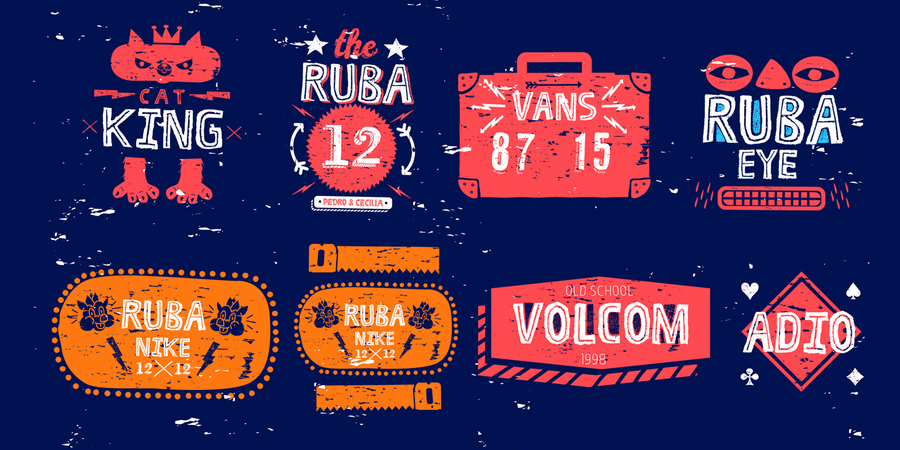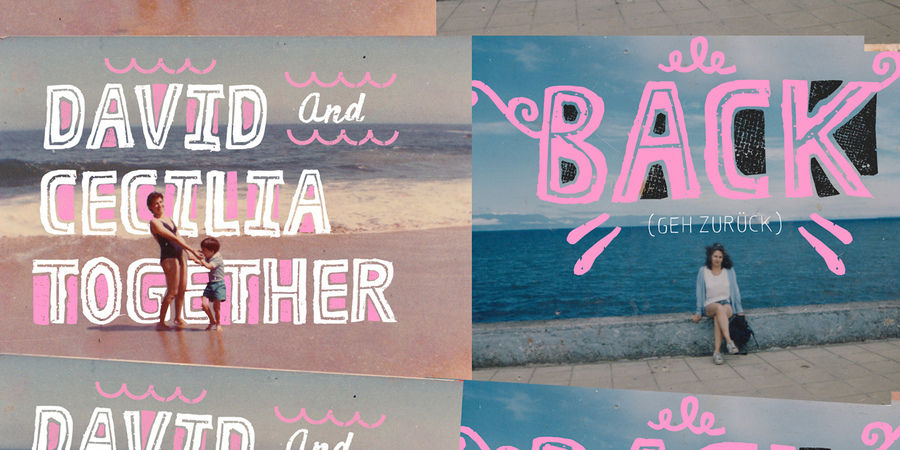
Ruba Style is a variant of Ruba. Ruba style plays with Retro, Vintage, Memories, Skate, Bike. To generate the whole idea was divided into some groups.
First group: Ruba Style Regular, Ruba Style Layer (typeface that helps power holders style Ruba Regular), Ruba Style Shadow. Second group: Ruba Line One (linear ornaments), Ruba Line Two (linear ornaments with inline). Third group: Old Dingbat 01, 02, 03, 04, 05 (dingbat designs based on 80-90 years old). Fourth and final group: Ruba Numbers (set of special numbers), Ruba Words (words helps to boost title) Ruba Xtra (thin typeface with Cyrillic and Greek alphabet helps Ruba Regular), Ruba Xtra Italic (thin italic typeface now contains Cyrillic and Greek alphabet helps Ruba Regular). Ruba Style designed by Rodrigo Araya Salas and in 2015.